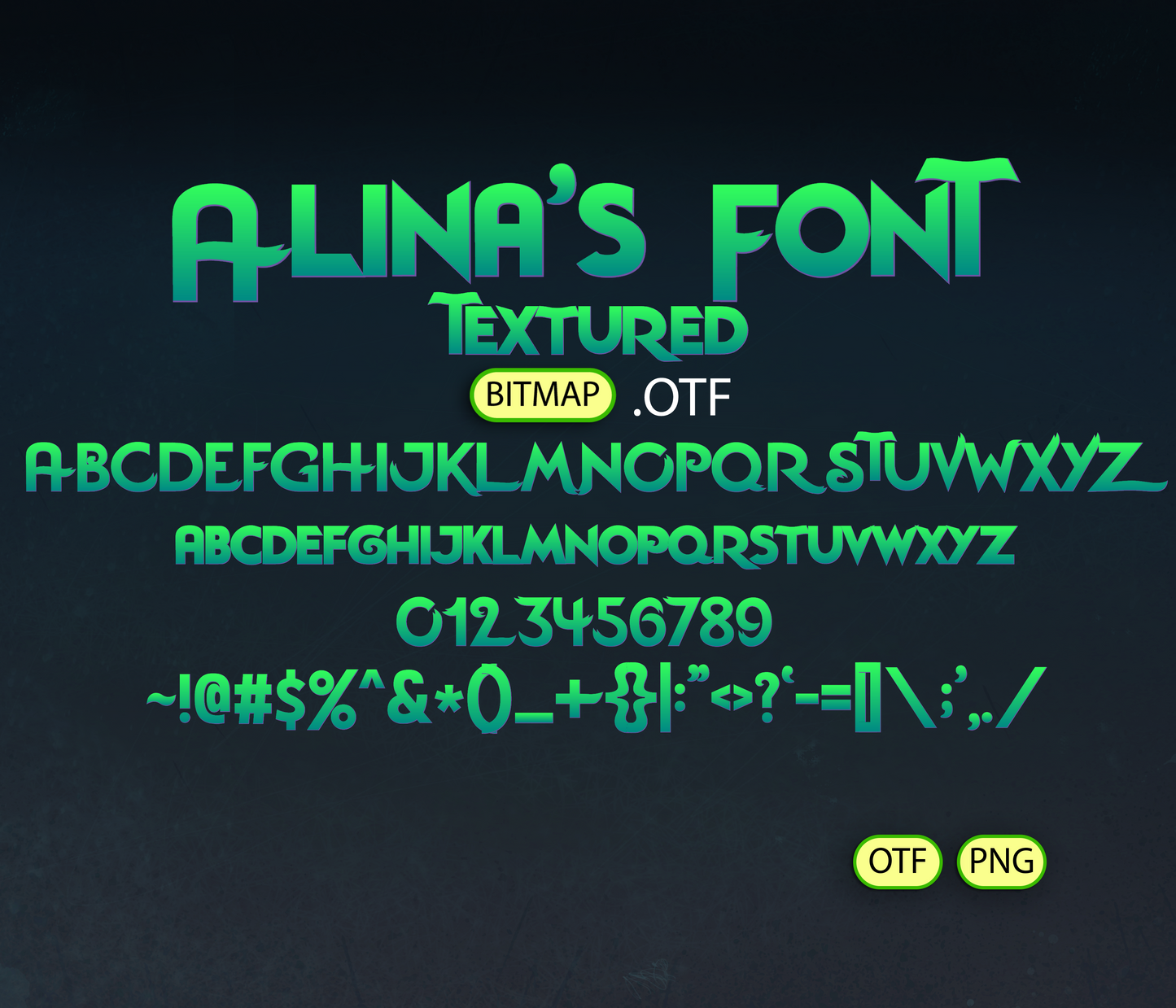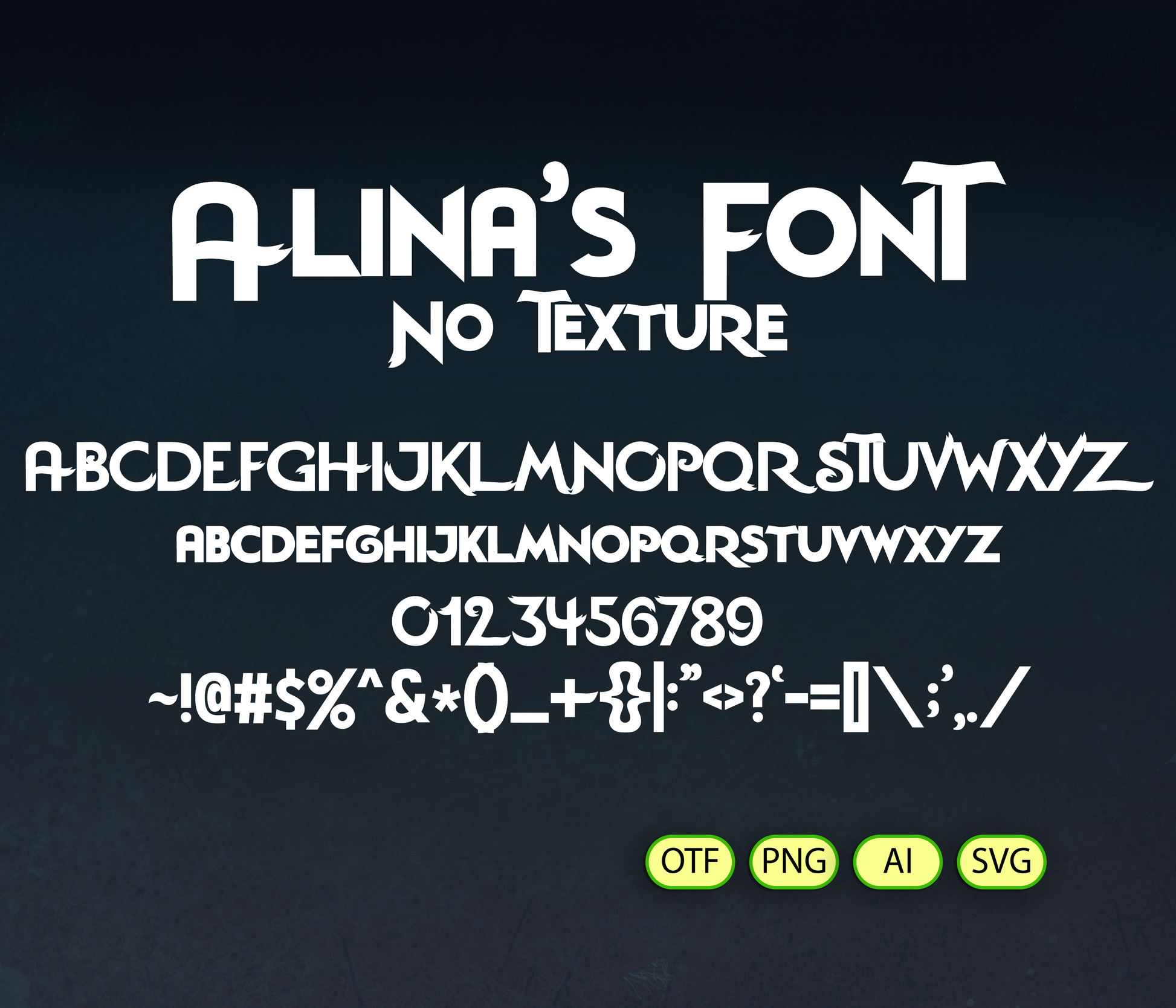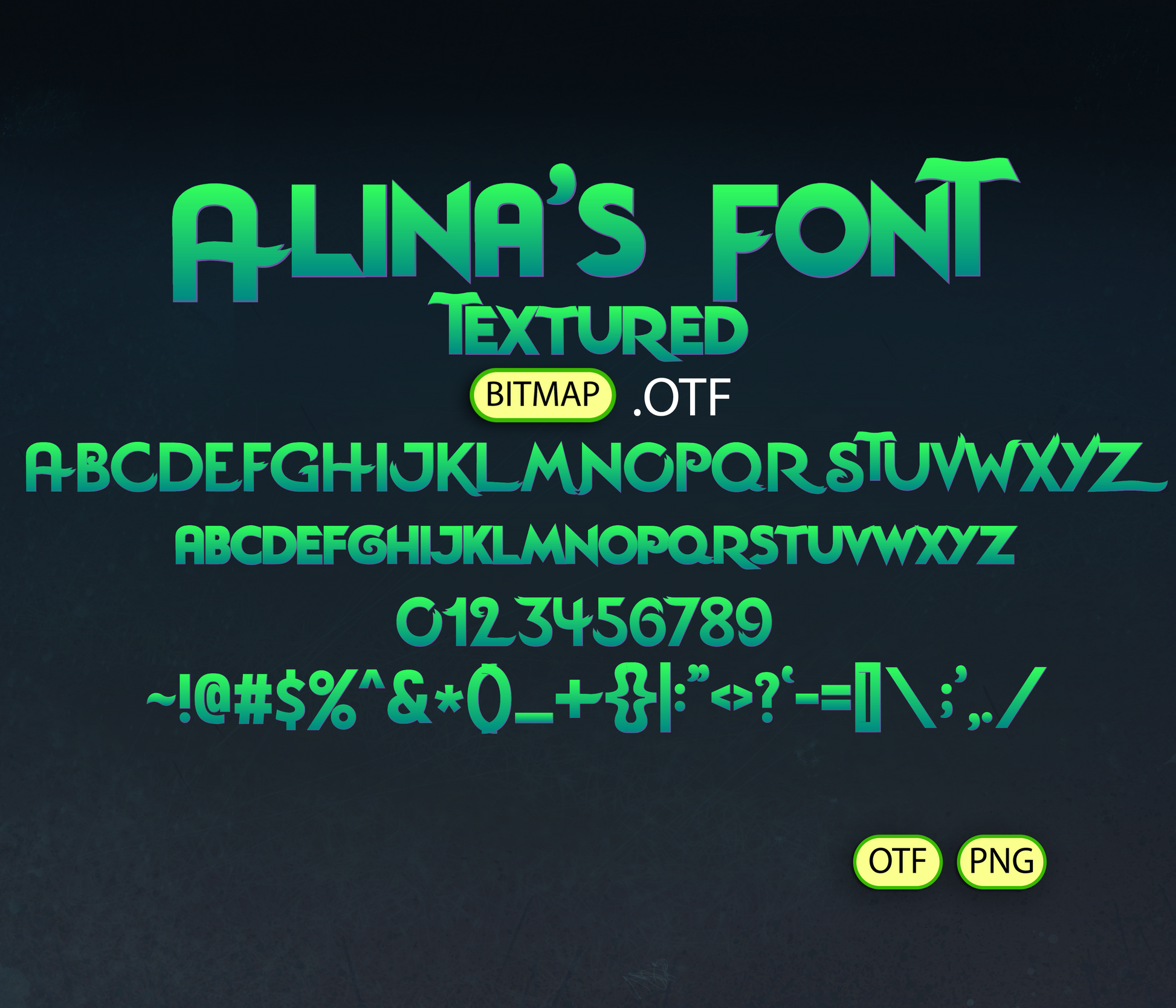
Animal City Font Textured
Introducing the 2023 Animal City Textured Font, a creation born from the whimsical and adventurous spirit of a vibrant animated universe! This font embodies the playful essence and distinctive textures found in the bustling cityscape of a metropolis where animals of all kinds coexist. Drawing inspiration from the lively story of a determined rabbit officer and a sly fox, this font aims to sprinkle a dash of animated magic onto your words. It's not merely a font; it's your passport to capturing animated vibrancy and imaginative flair in your projects.
What Font is Animal City Font?
The Animal City Textured Font is a concoction of playful shapes and easy-to-read letters. It encompasses uppercase and lowercase letters, numbers, and special characters too, making it a versatile choice for an array of creative endeavors. Perfect for crafting, the Animal City Textured Font is your go-to for designing storybooks, birthday cards, event invitations, and so much more. It's like having a slice of an enchanting urban jungle right on your computer! With the Animal City Textured Font, your projects will resonate with the adventurous spirit and charming aesthetics of a world where animals walk and talk. This font is your golden ticket to making everyday designs feel a bit more extraordinary.
What Can You Do With Animal City Font?
Fans everywhere will enjoy using this font for personal projects and more to express their love for an amazing animated universe. Find below some things you can do with Animal City Textured Font:
- Design workbook activities for kids in your elementary school class
- Create a birthday card filled with animated whimsy
- Make banners and signs for home decor that echo the playful streets of an animal metropolis
- Throw a themed birthday party
- Add decorations and style to a scrapbook, capturing the adventurous spirit of talking animals
- Develop a themed scavenger hunt
- Create a themed stencil for imaginative art projects
- Design engaging labels and tags
- Craft personalized storytelling kits for kids
- Make themed event invitations that spark excitement and curiosity